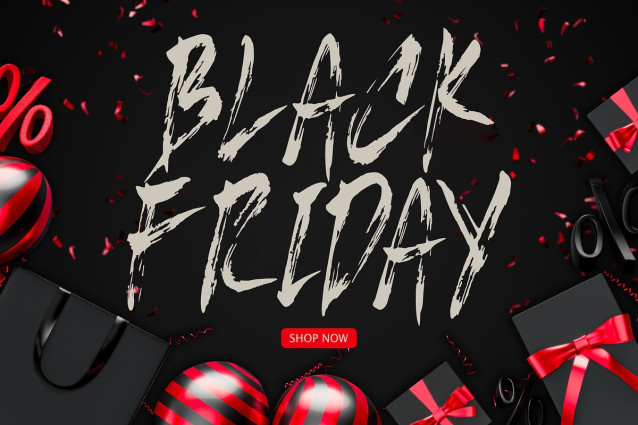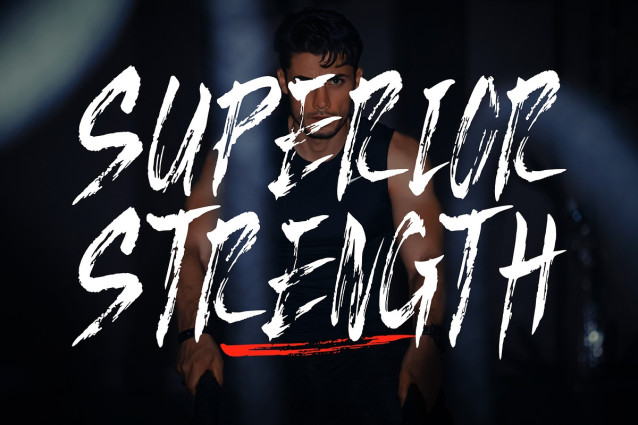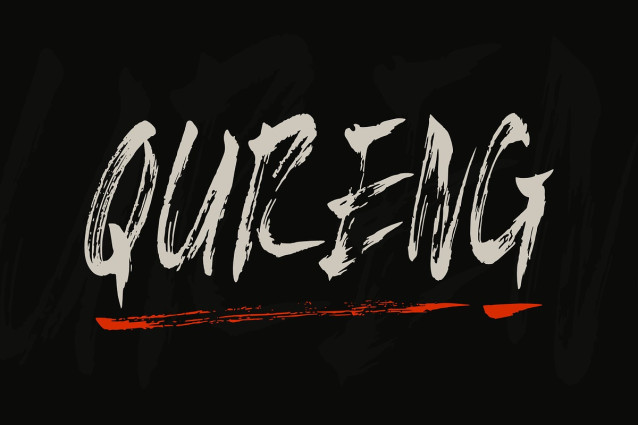
Qureng Brush Font
Qureng Brush Font a bold and aggressive brush font crafted to make a brutal impact. Each letter is hand-drawn with wild strokes, rough textures, and chaotic flair—perfect for projects that demand intensity and emotion. Whether you’re designing for music covers, horror posters, streetwear brands, or rebellious logos, Qureng brings a fierce and untamed personality to your typography.
This font thrives on contrast—gritty yet stylish, harsh but controlled. The irregular edges and powerful brush marks give it an authentic handmade feel, while maintaining excellent readability.